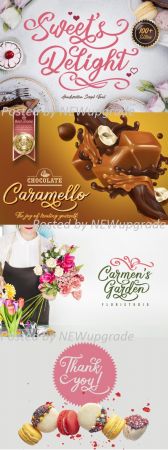
Sweet’s Delight is a cute and casual handwritten font with an incredibly friendly feel. Whether you’re looking for fonts for Instagram or calligraphy scripts for DIY projects, Sweet’s Delight will turn any creative idea into a true piece of art!
This font is PUA encoded which means you can access all of the cute glyphs and swashes with ease! It also features a wealth of special features including alternate glyphs and ligatures.